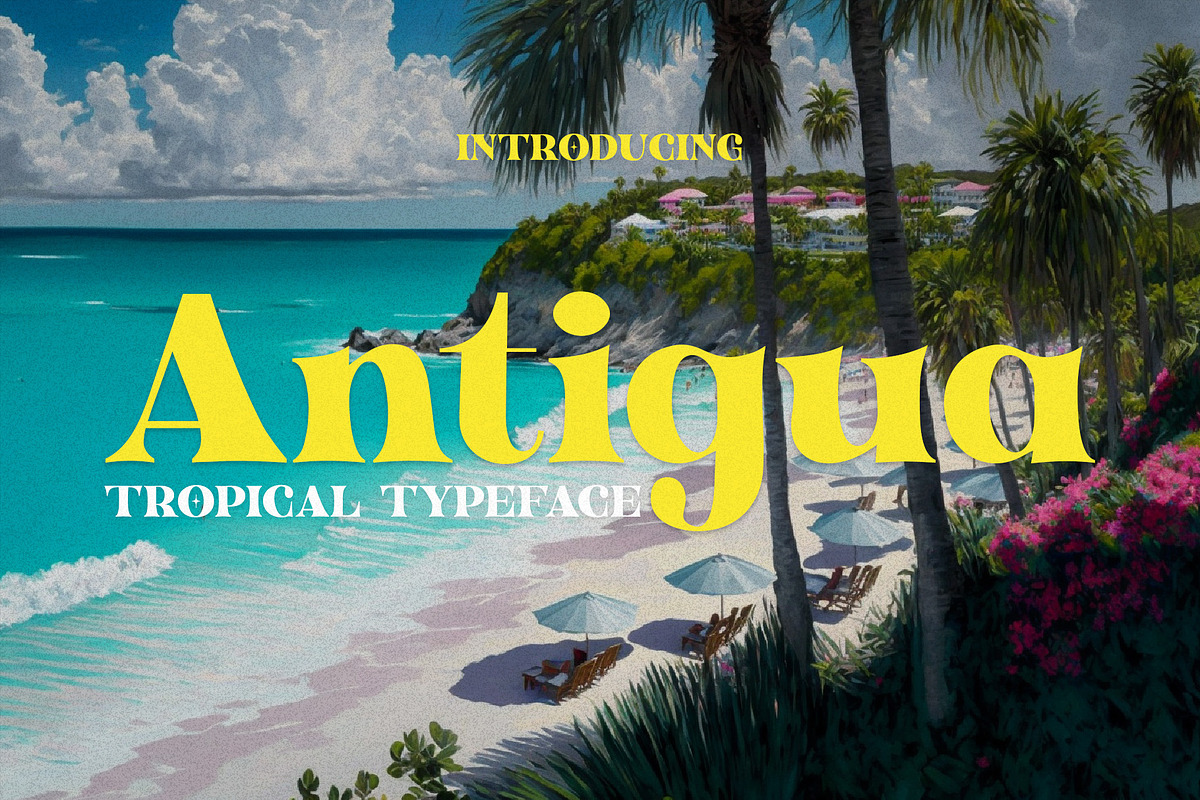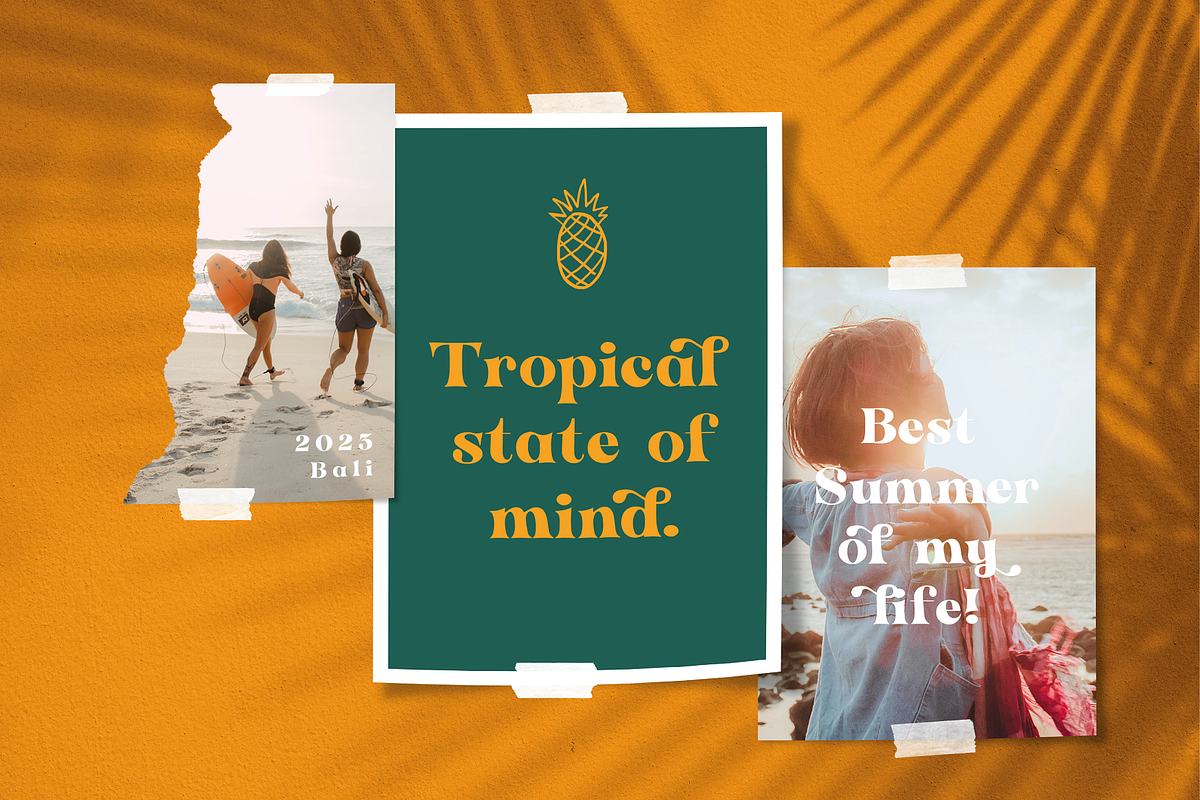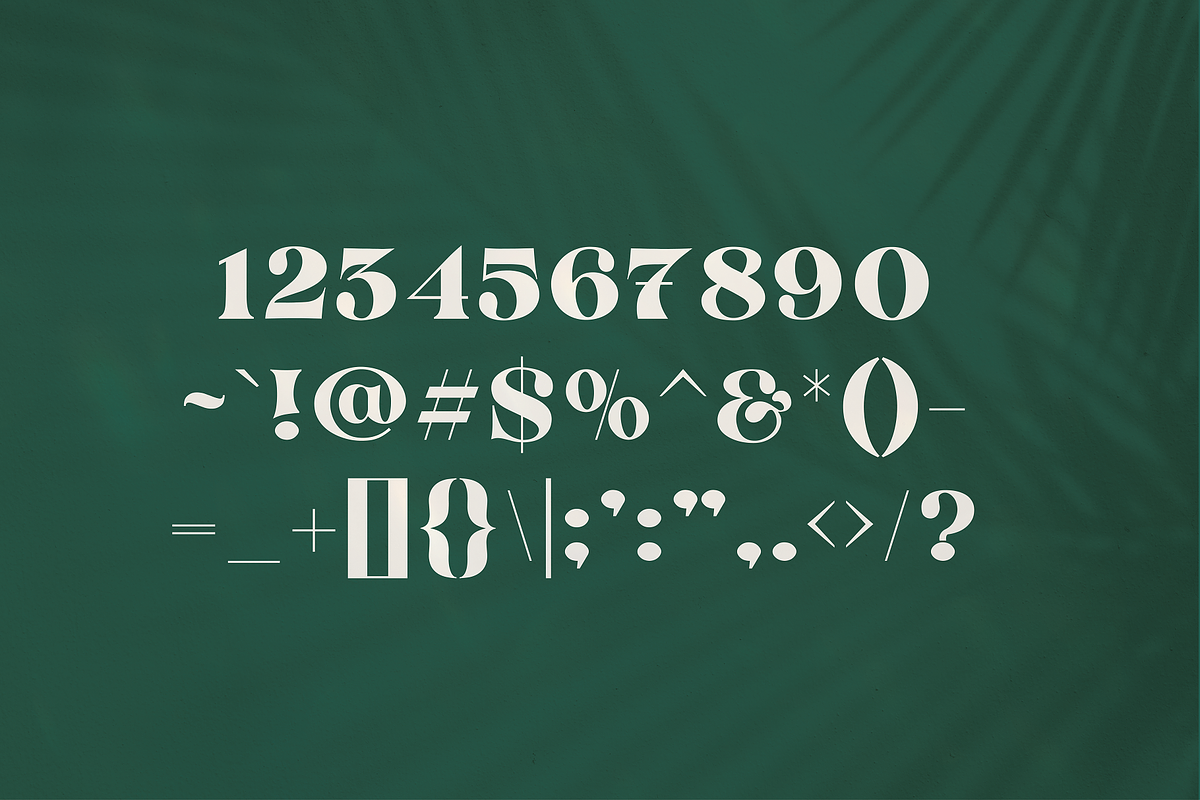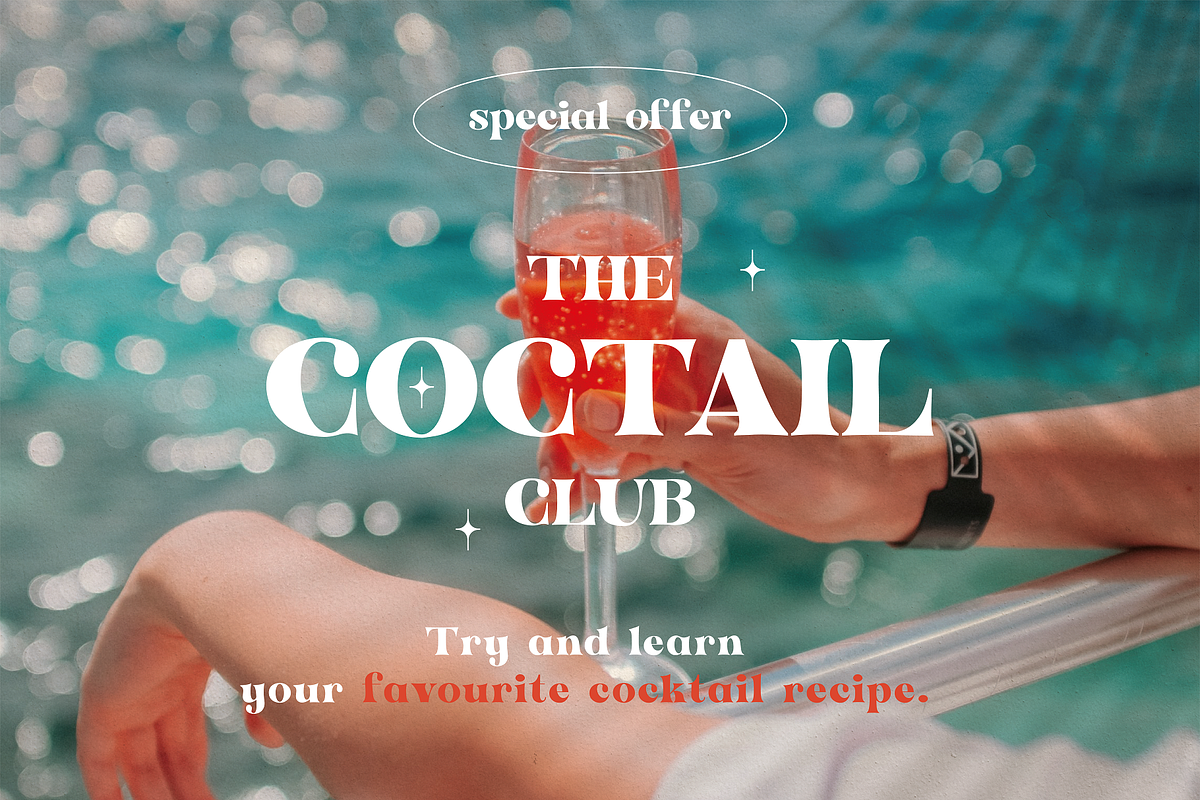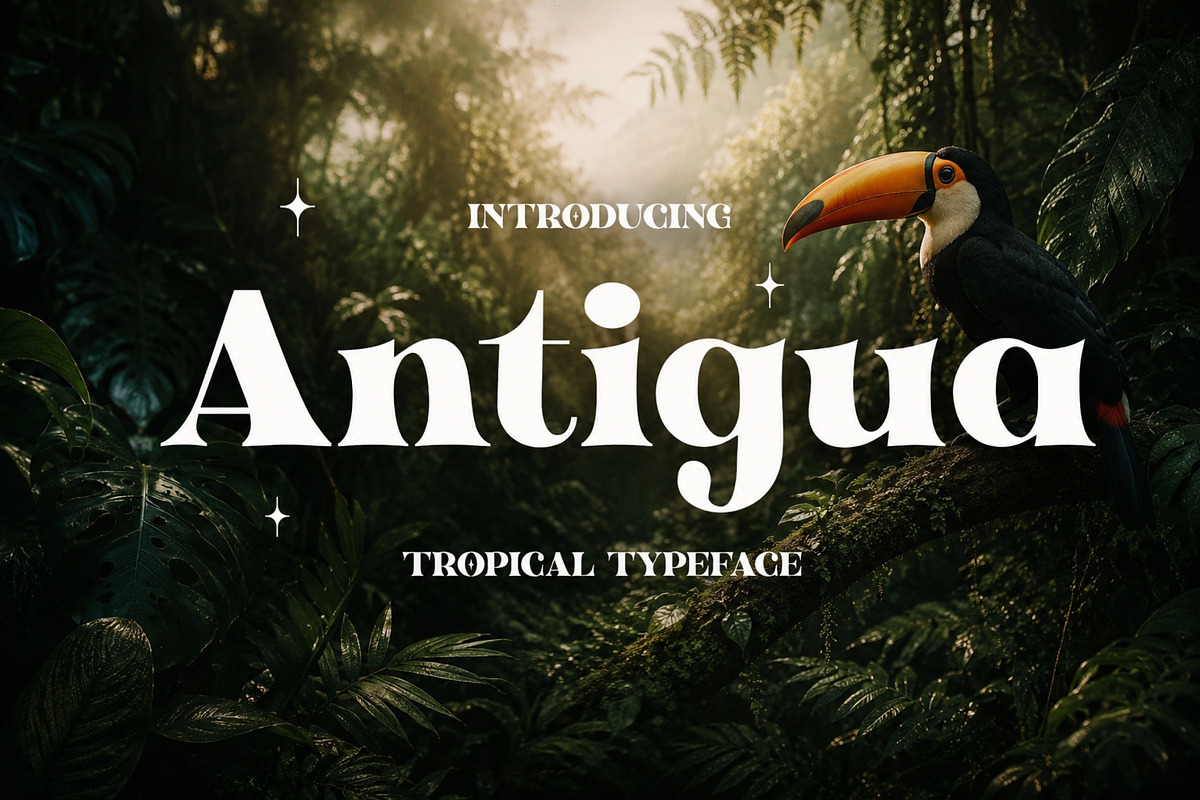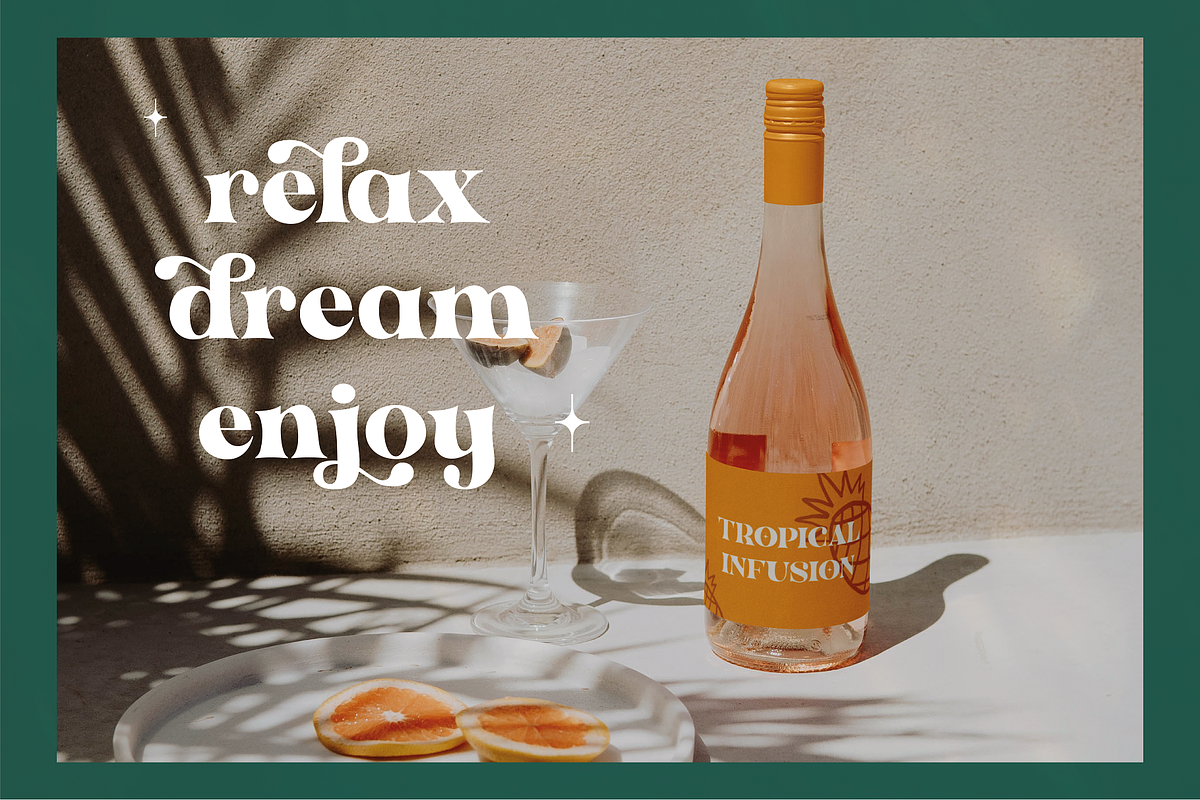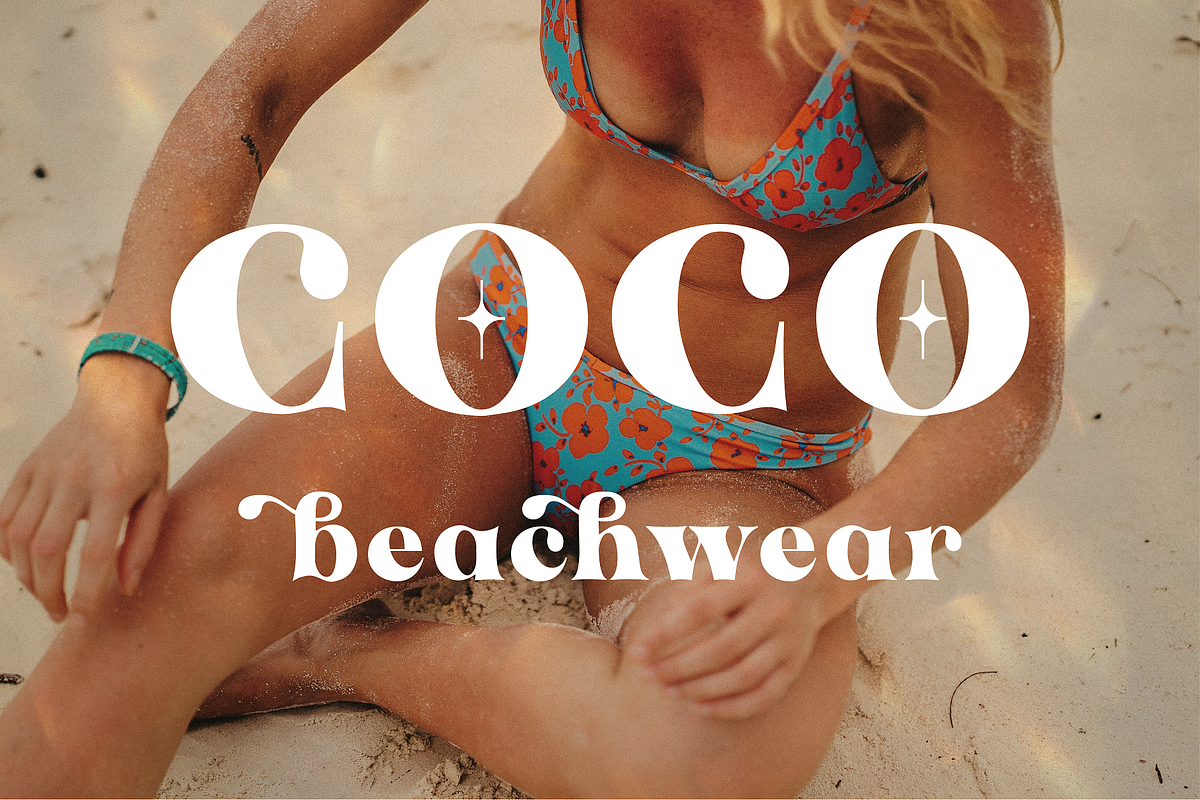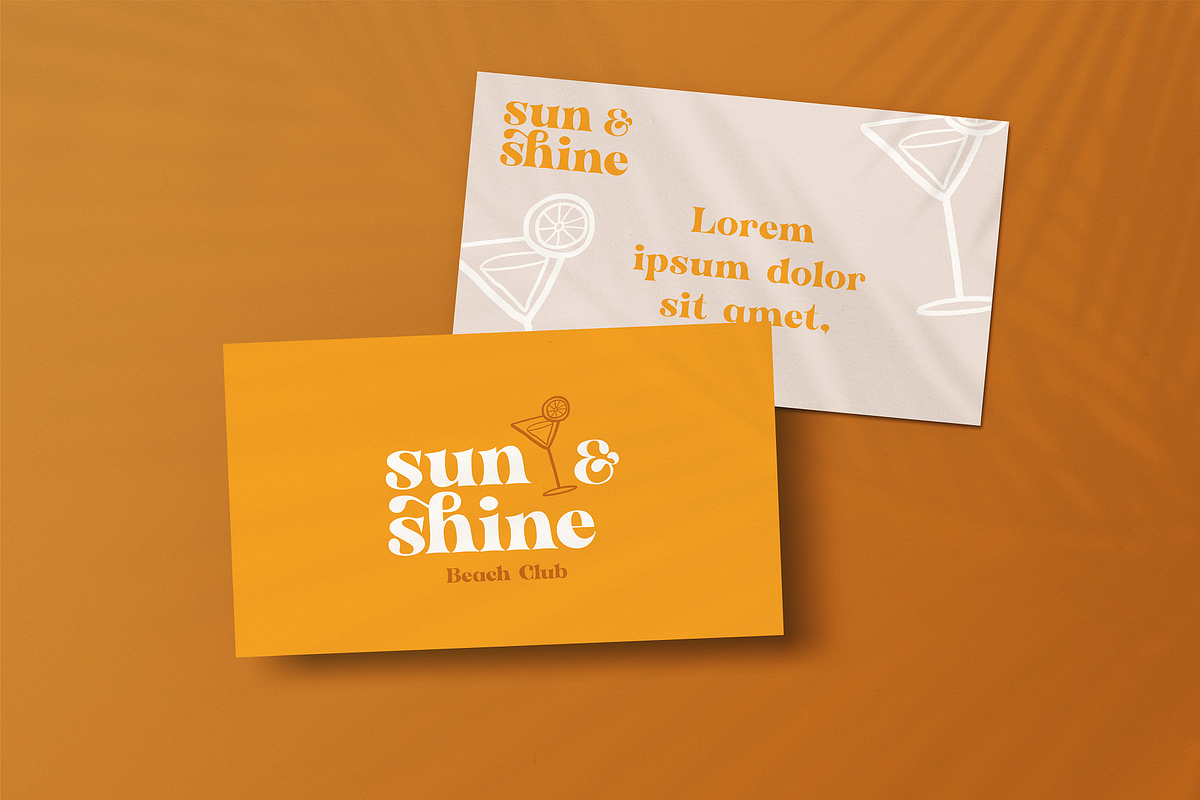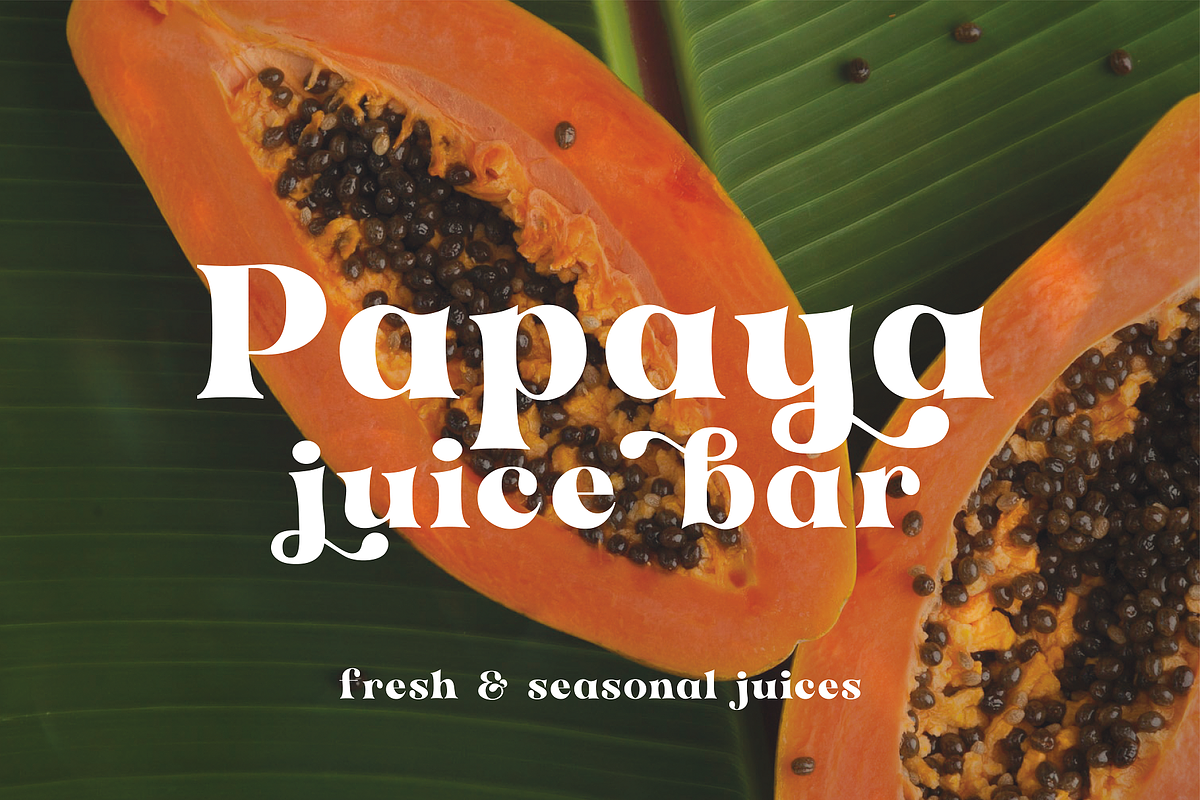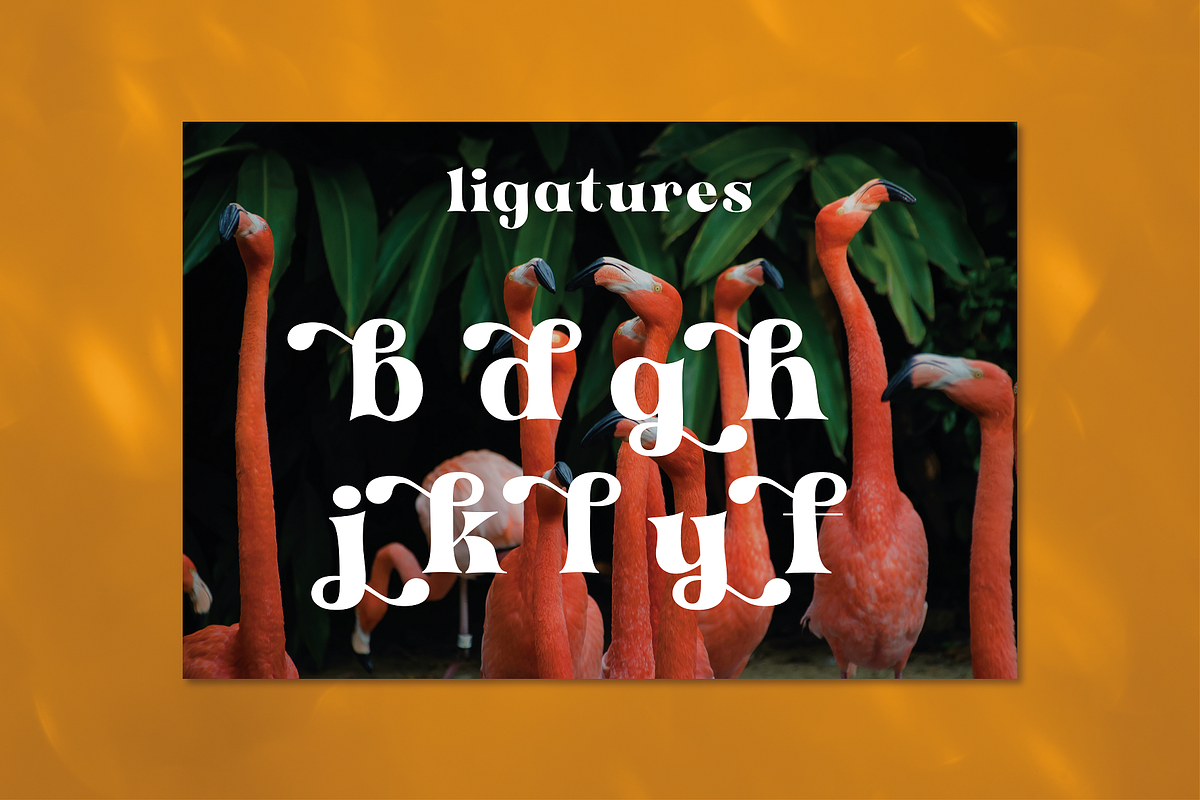
Antigua - Tropical Display
Antigua is a bold serif font family that comes in two flavors regular and outline (plus bonus ligatures). The typeface is simple, elegant, versatile, and memorable. You can use Antigua for branding, packaging, posters, social media, and magazines. This font is a joy to use and read, a must for your design toolbox.